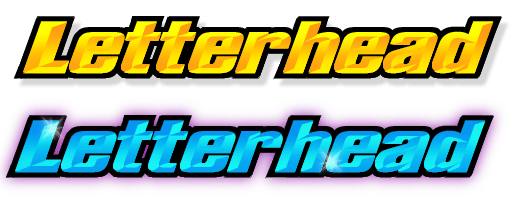
1. Type your text
Type text in convecta base font and kern your text. Duplicate and change the duplicated lettering to Convecta Convex. (Note: It is important to kern your text before duplicating, otherwise it will not align properly later)
2. Convecta Convex
Add a vertical gradient fade of 10% black to 100% black (light on bottom, dark on top) to the Convecta CONVEX lettering.
3. Convecta Base
Add a vertical gradient fade of 100% black to 10% black (dark on bottom, light on top) to the Convecta BASE lettering.
4. Add an Outline
Add an outline to the Convecta BASE lettering.
5. Add the Convex
Now all that's left is to position the CONVEX lettering on top of the BASE lettering.
6. Try different colors
Eye-catching effects can be acheived by playing with the colors and outlines.